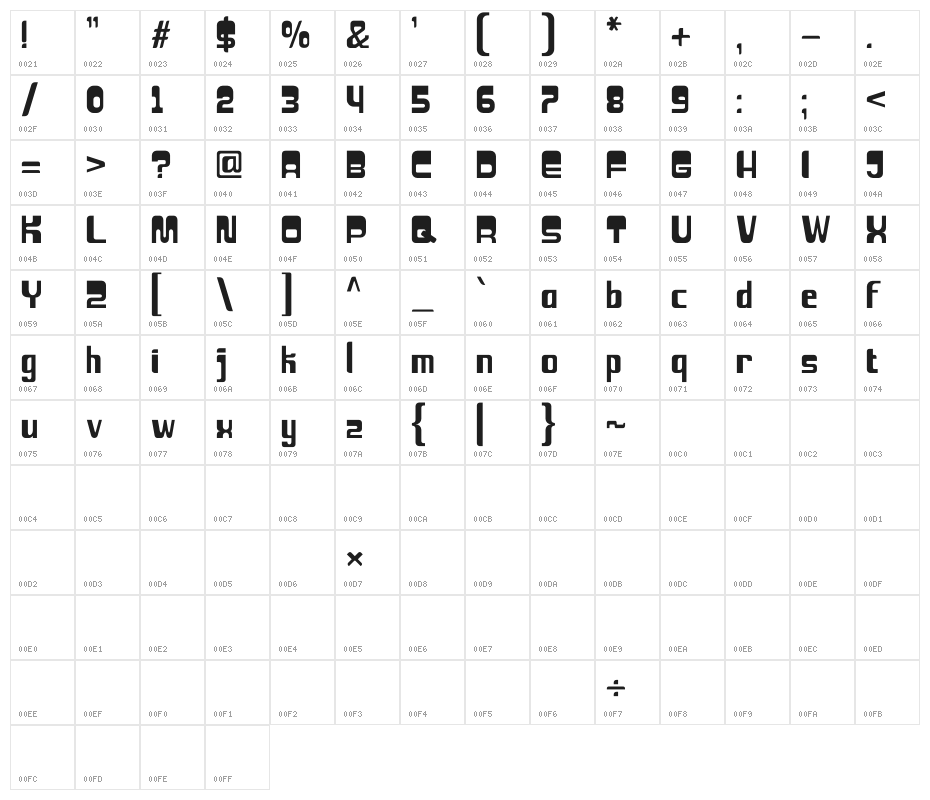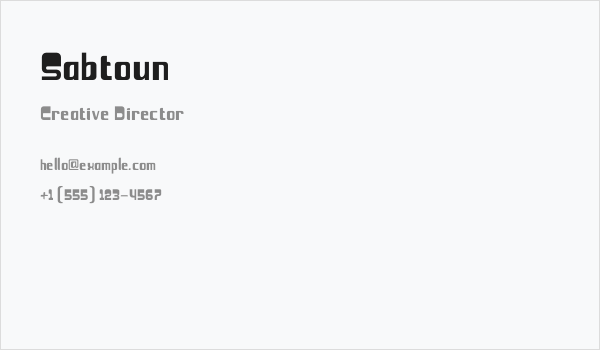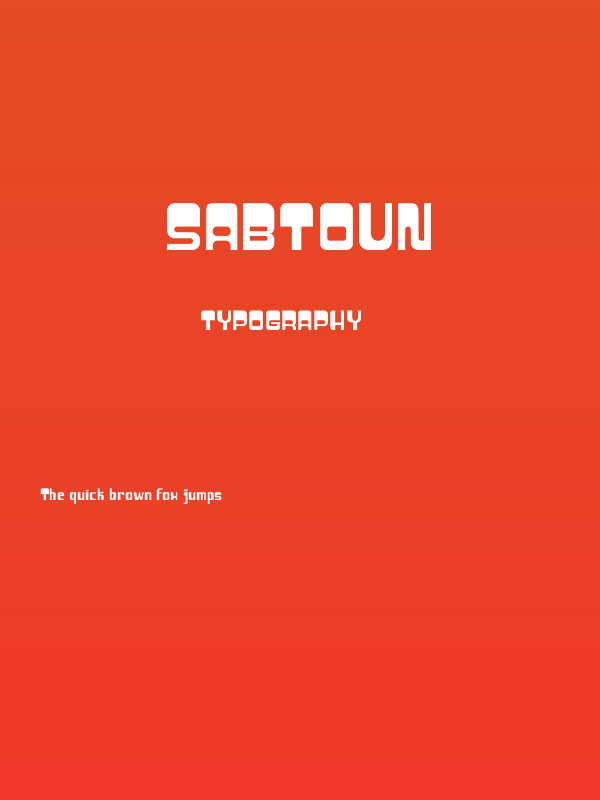
Sabtoun Font
Sabtoun Description
This font features a bold and modern design with a distinct geometric style. The characters are blocky with rounded edges, giving them a unique and approachable appearance. The uppercase letters are uniform in height, while the lowercase letters maintain a consistent style with slight variations in form. Numbers are bold and clear, ensuring readability. Special characters are well integrated, maintaining the overall aesthetic. The font's design is suitable for creating impactful headlines and logos, where a strong visual presence is required.
| Proposed Projects | This font is perfect for branding projects, logo design, poster headlines, and any creative project that requires a bold and modern aesthetic. |